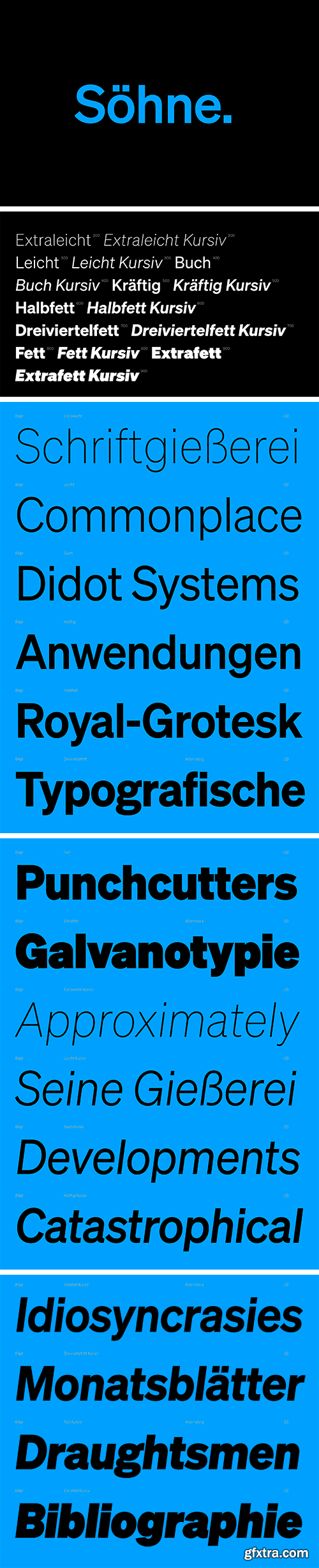
Sohne Font Family
Söhne is the memory of Akzidenz-Grotesk framed through the reality of Helvetica. It captures the analogue materiality of “Standard Medium” used in Unimark’s legendary wayfinding system for the NYC Subway.